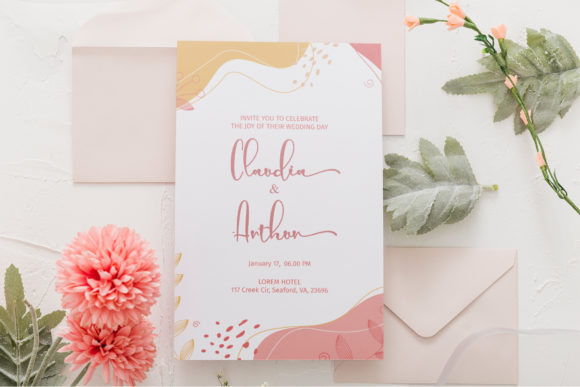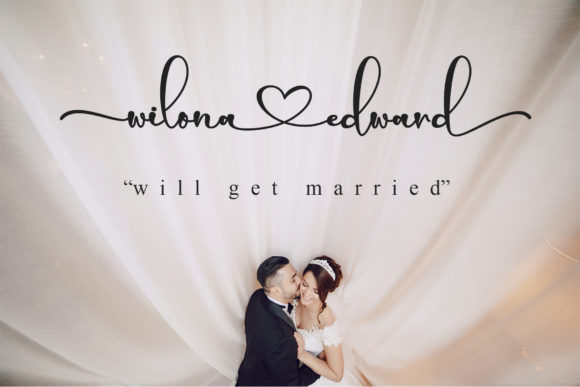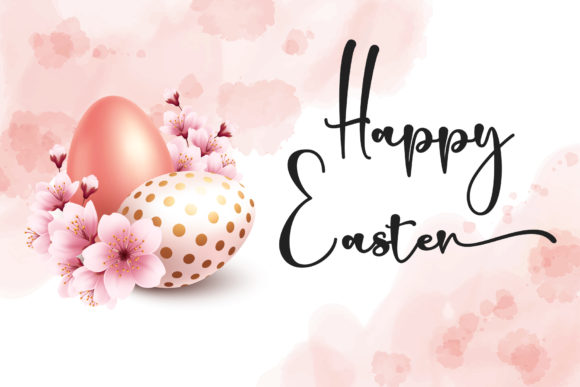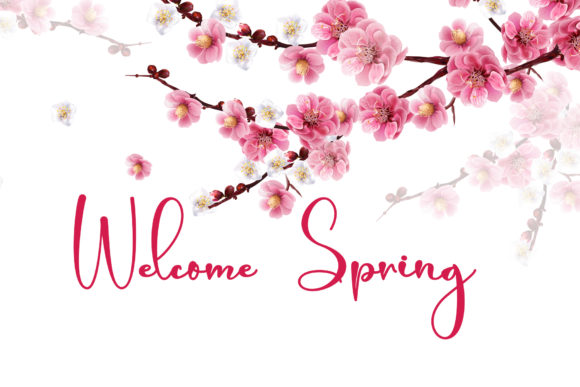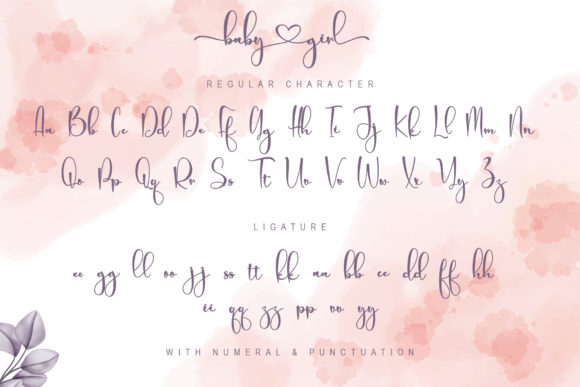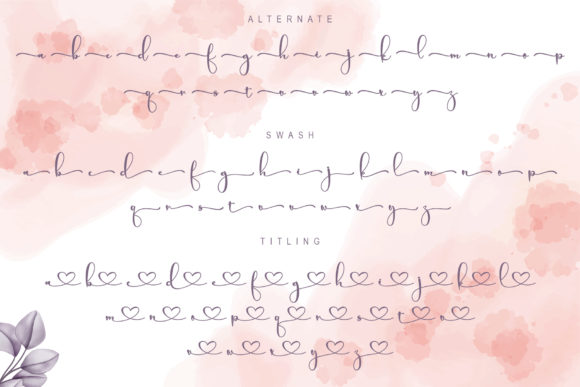
The Perfect Font for a Delicate Touch
Have you ever been browsing through a craft store, and suddenly, a beautifully designed greeting card catches your eye? The handwritten font used in that card sparks joy and makes you feel all warm inside. That’s exactly what the Baby Girl Font is all about – adding a delicate, personal touch to your designs.
Baby Girl Font is a stylish handwritten font that’s perfect for a wide range of projects, from greeting cards to headlines. Its flexibility and beauty make it a valuable asset for designers who want to add a touch of elegance to their work. With its PUA encoding, accessing all the beautiful glyphs and swashes is a breeze, making it a dream to work with.
Baby Girl Font Key Features
- Unique Characteristics: The Baby Girl Font features a playful, cursive design with rounded edges and intricate details, making it perfect for feminine and child-related designs.
Baby Girl Font Review
I recently had the chance to work with the “Baby Girl Font” and here’s my honest review. ✨ First of all, I have to say that I love the whimsical and playful feel of this font. It’s perfect for creating a soft and feminine look for any project related to babies or little girls. The font is also highly customizable, allowing me to adjust the size, color, and style to fit my design needs.
Here are some of the things that I like about the “Baby Girl Font”:
- ✨ Unique and playful design that’s perfect for baby-themed projects
- ✨ Highly customizable with a wide range of size and color options
- ✨ Easy to use and navigate, even for beginners
However, I do have a few issues with the font:
- ⚠️ Limited character set, which can be a problem if you need to use special characters or punctuation
- ⚠️ Not ideal for large blocks of text, as it can be difficult to read
- ⚠️ May not be suitable for professional or formal projects, due to its playful and casual feel
Overall, I would give the “Baby Girl Font” 4 out of 5 stars. It’s a great choice for personal projects or projects that require a soft and feminine touch, but it may not be the best option for more formal or professional projects.
The Baby Girl Font is perfect for:
- Baby shower invitations and decorations.
- Children’s birthday party invitations and decorations.
- Personalized baby gifts and keepsakes.
For the best results, use the Baby Girl Font in conjunction with pastel colors and floral patterns to create a soft and feminine look.
Alternatives to Baby Girl Font
Baby Girl Font is a popular script font used for various design purposes. However, designers may look for alternatives that offer unique characteristics and versatility. Here are three alternatives to Baby Girl Font:
Great Vibes is a modern script font designed by Handmade Font Foundry. It is perfect for creating elegant and sophisticated designs. Great Vibes has a more refined and polished look compared to Baby Girl Font, making it ideal for formal invitations, wedding designs, and luxury branding.
Carolyna Pro is a script font designed by Carolyna Sanchez. It has a feminine touch and is suitable for various design projects, from wedding invitations to branding and marketing materials. Carolyna Pro has a more delicate and elegant feel compared to Baby Girl Font, making it perfect for designs that require a touch of sophistication.
Didot Script
Didot Script is a classic script font designed by Didot. It has a luxurious and elegant feel, making it perfect for high-end branding, wedding designs, and formal invitations. Didot Script has a more refined and sophisticated look compared to Baby Girl Font, making it ideal for designs that require a touch of luxury.
Q: Is Baby Girl Font available in different weights and styles?
Yes, Baby Girl Font comes in multiple weights and styles, including regular, bold, italic, and bold italic. This allows you to create a range of visual effects and add depth to your designs. You can also use the font’s built-in ligatures and swashes to add a touch of elegance and sophistication.